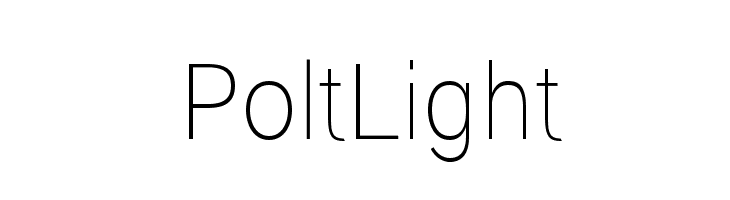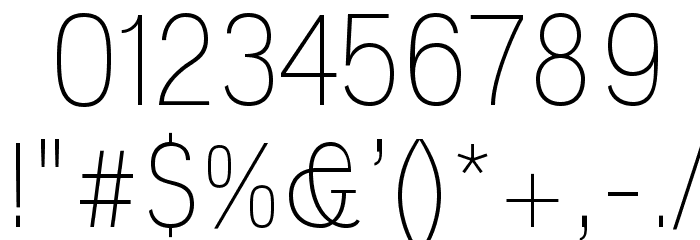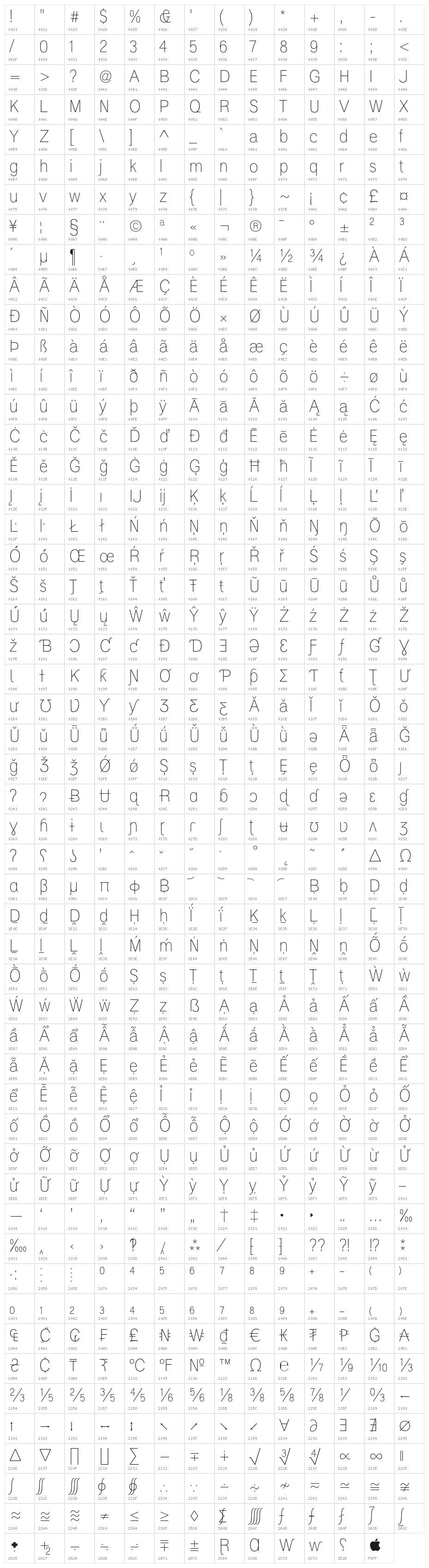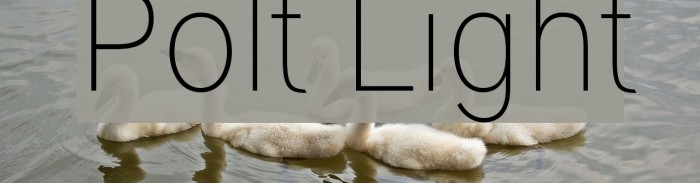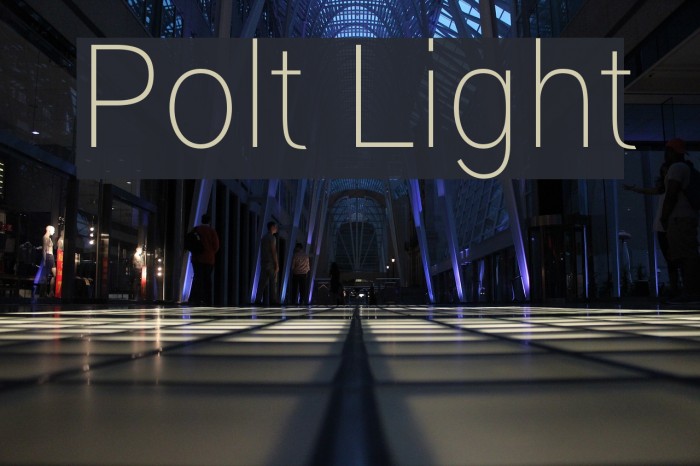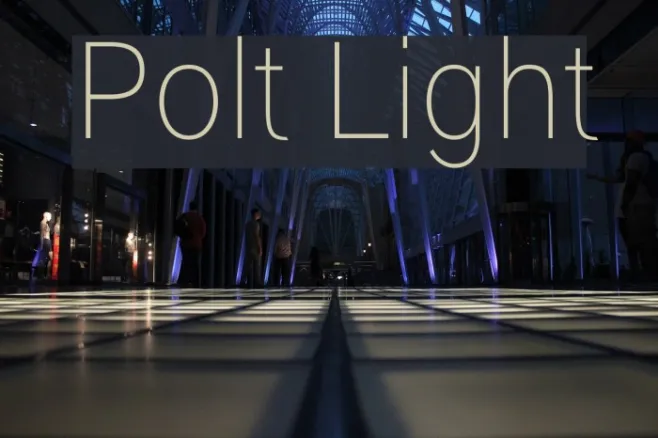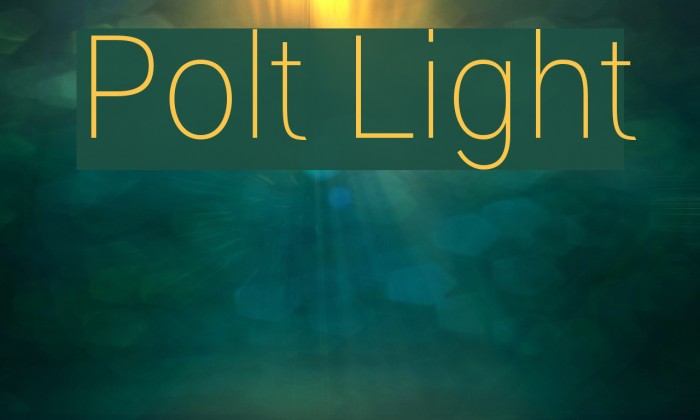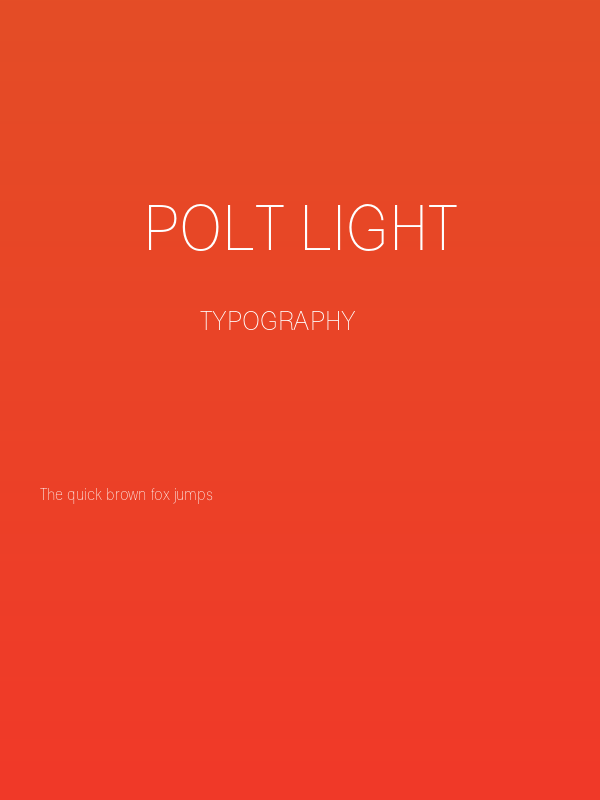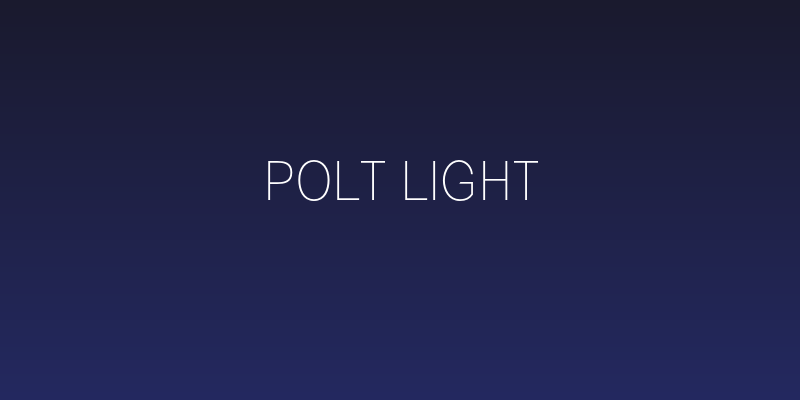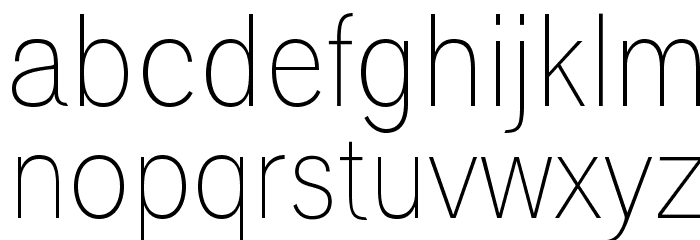
Polt Light Font
Polt Light Description
This font features a clean and modern sans-serif design with a light weight, offering a sleek and minimalist appearance. The characters are well-proportioned with a uniform stroke width, providing a consistent and harmonious look. The uppercase letters are tall and elegant, while the lowercase letters maintain a balanced and approachable style. The numerals are clear and easy to read, making them suitable for various applications. Special characters are included, enhancing the font's versatility. The overall design is highly legible, making it ideal for both digital and print media.
| Proposed Projects | Ideal for branding, web design, editorial layouts, and corporate communications. |